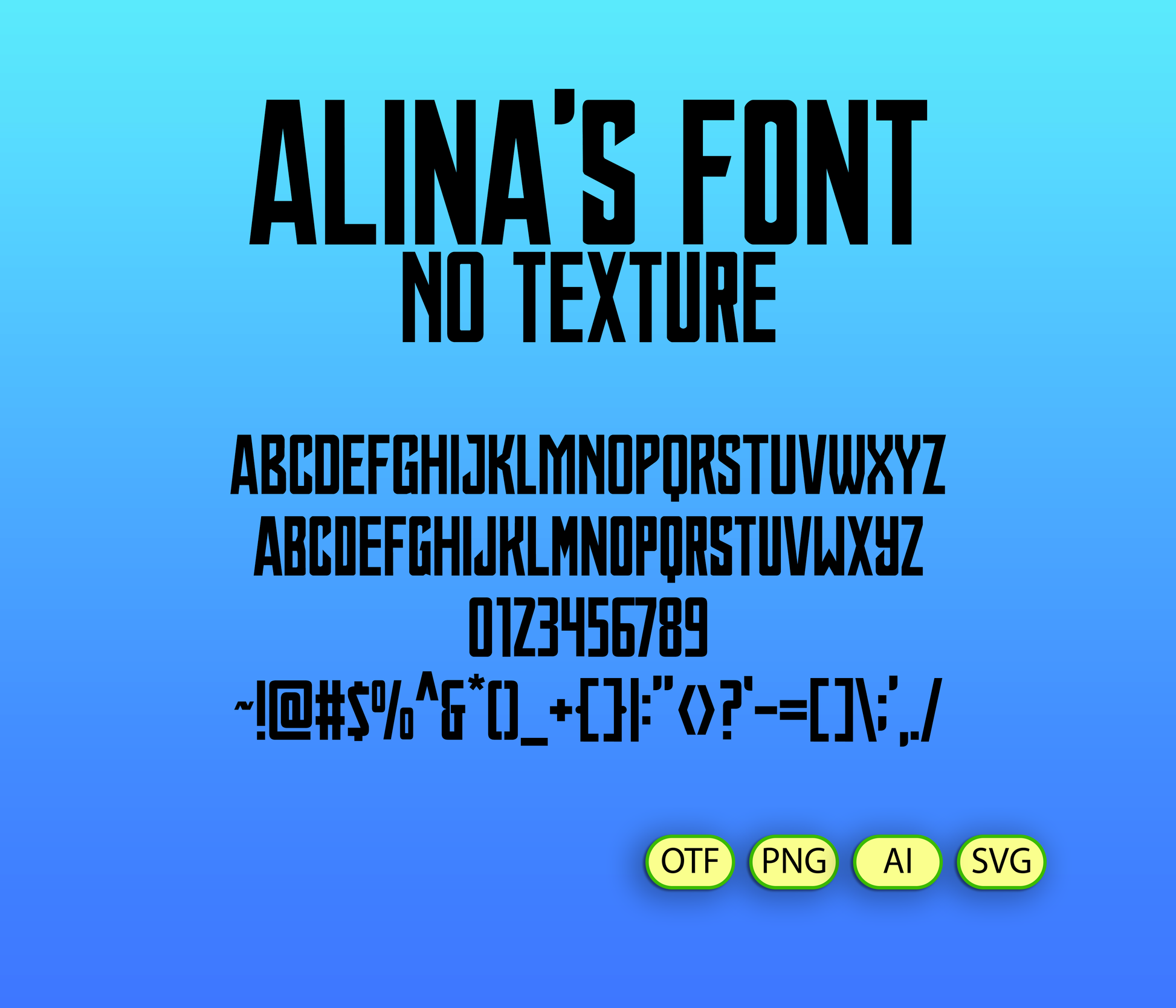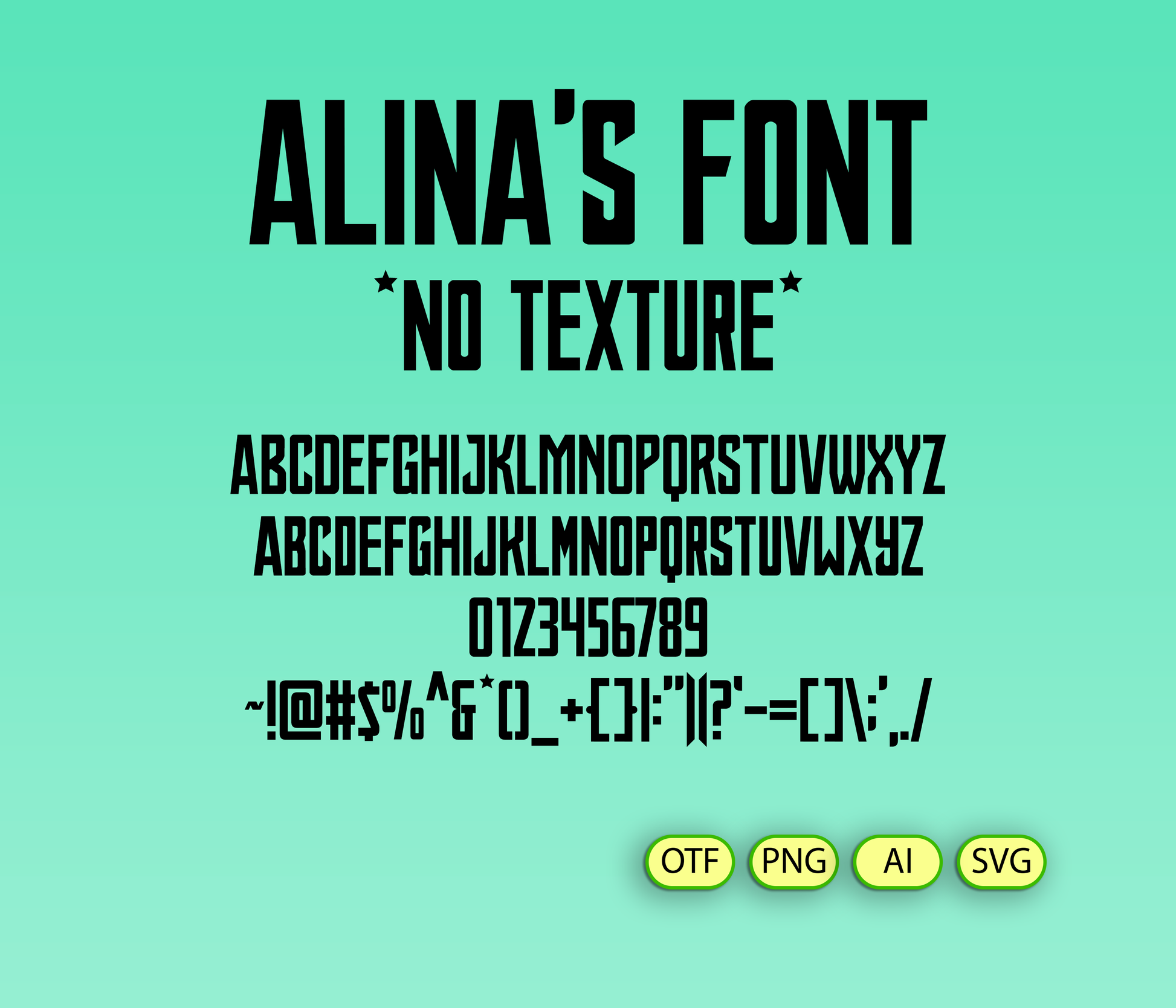
Heroic Team Font
Empower Your Designs with the Heroic Team Font
Harness the strength, unity, and heroism of iconic superheroes with our Heroic Team font. Perfect for fans, event planners, and designers, this font captures the dynamic essence of the world's greatest heroes. Whether creating event invitations, themed merchandise, or digital content, our Heroic Team font ensures your projects resonate with the inspiring nature of legendary heroes.
Our Heroic Team font features bold, strong lines and dynamic characters reflecting the power and heroism of iconic superheroes. This versatile font is ideal for:
- Event Invitations: Striking invites for superhero-themed parties, movie nights, or comic conventions.
- Merchandise Design: T-shirts, posters, and accessories capturing the essence of the heroic team.
- Digital Media: Powerful headers and graphics for websites, blogs, and social media.
- Educational Materials: Presentations, worksheets, and content focused on superheroes, teamwork, or storytelling.
- Personal Projects: Add heroism to scrapbooking, DIY crafts, or home decor inspired by the heroic team.
Capture the Heroic Spirit
Our Heroic Team font not only pays tribute to legendary superheroes but also empowers you to infuse your designs with their dynamic and inspiring spirit. Whether crafting promotional materials, designing unique merchandise, or adding a bold touch to personal projects, this font allows you to communicate with the strength and unity that define heroes. Ready to elevate your creative projects to heroic heights? This font is your key.